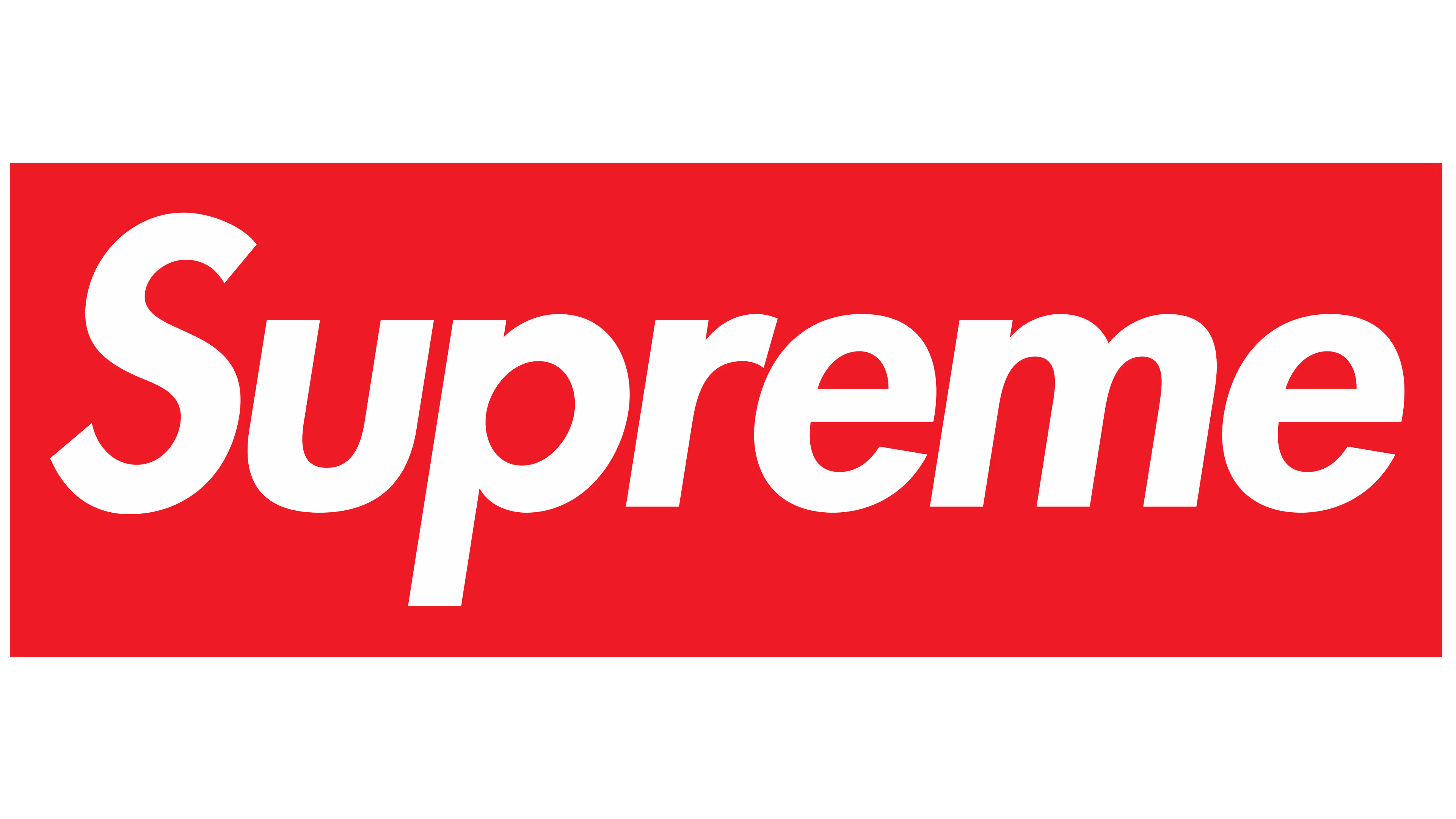
Supreme Logo
Futura
The closest font you can get for the "Supreme Logo" logo is this font
Supreme is an American skateboarding shop and clothing brand established in New York City in April 1994. The brand caters to skateboarding, hip hop, and youth culture in general. Supreme produces clothing, accessories, and skateboards. The Supreme logo is one of the most recognizable logos in streetwear. The Supreme logo font is Futura Heavy Oblique, a bold italic sans serif typeface displayed in white inside the brand’s famous red box logo. This distinctive logo font gives Supreme its strong visual identity and has become closely associated with skate culture and modern street fashion.